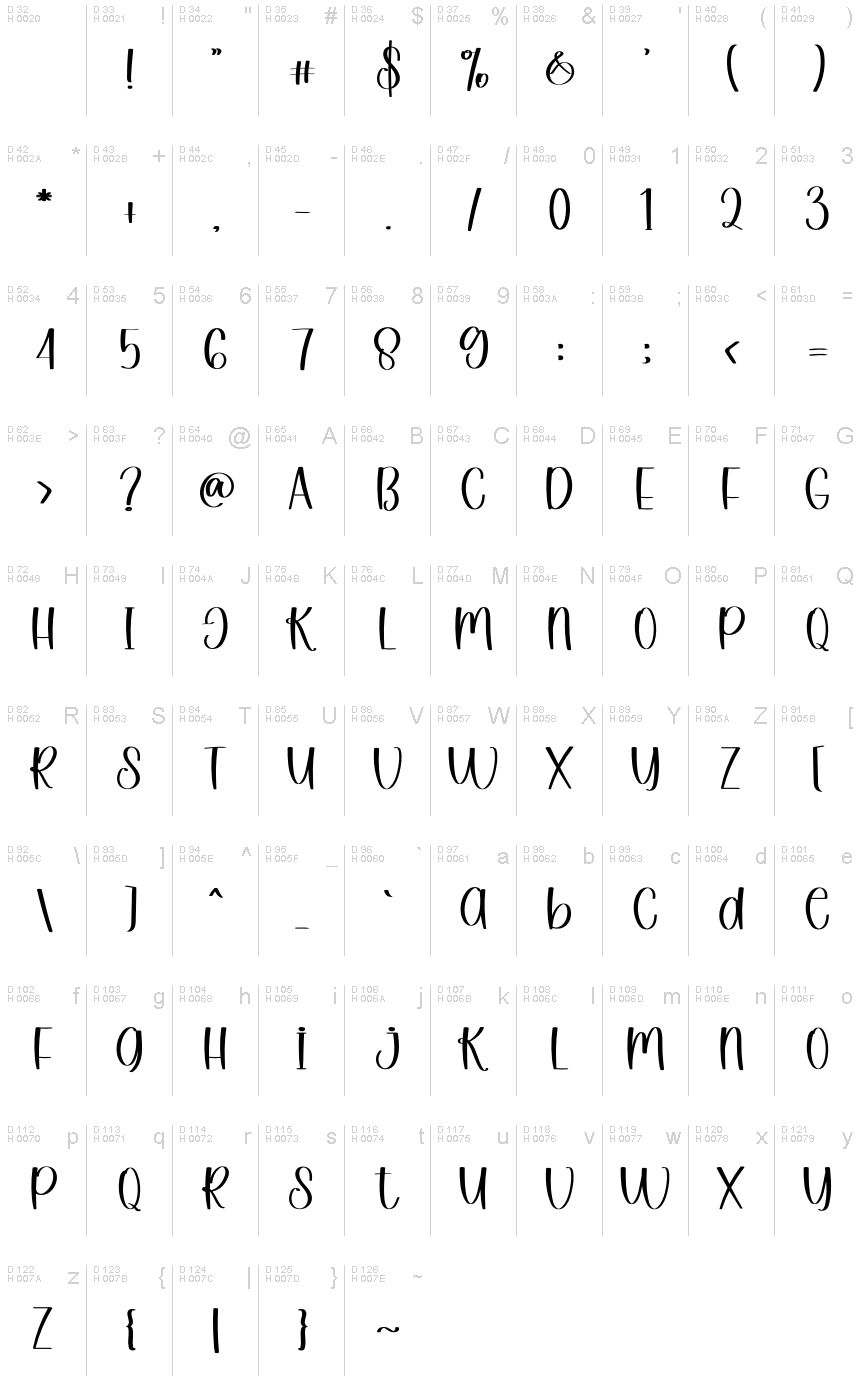
Creative Splash
Creative Splash, designed by Inermedia Studio, is a handwritten font that radiates charm and personality. Its semi-light weight and condensed width create a delicate yet emphatic presence on the page, perfect for designers seeking to inject a touch of authenticity into their work. The fluidity of Creative Splash's characters suggests a casual elegance, making it an ideal choice for branding projects, editorial designs, and personalized stationery.
Every stroke in Creative Splash tells a story of imaginative craftsmanship, ensuring that your creative endeavors will carry an air of originality. This font’s playful curves and natural flow lend themselves to informal contexts while maintaining readability—a balance not easily achieved in the realm of script fonts. Whether you're crafting invitations or spicing up social media graphics, Creative Splash offers versatility wrapped in an aesthetically pleasing package.